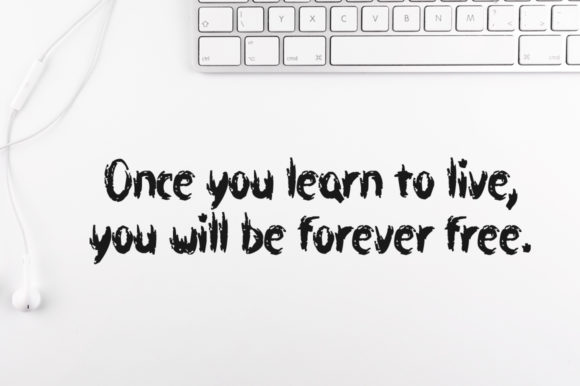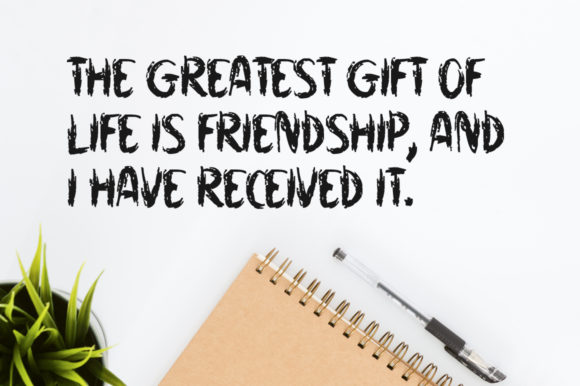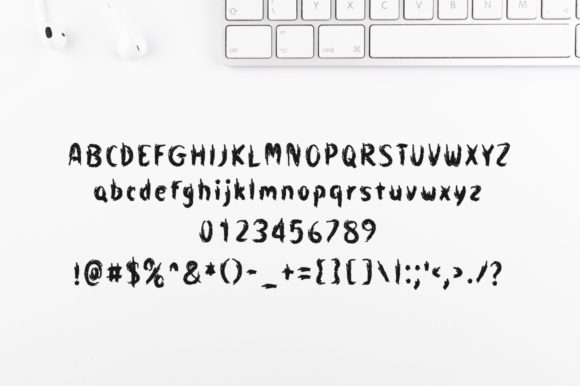
Introducing Forever Free Font: Adding a Rough Twist to Your Design Projects
Are you tired of using the same old fonts in your design projects? Look no further! Forever Free Font is a bold display font that is sure to add a unique charm to any design. With its rough and edgy texture, Forever Free Font is perfect for designers and crafters who want to add a touch of personality to their work.
What is Forever Free Font?
Forever Free Font is a bold display font that is designed to make a statement. Its unique charm lies in its rough and imperfect texture, which gives it a handmade feel. The font is perfect for use in a variety of design projects, including posters, flyers, brochures, and more.
Key Features of Forever Free Font
- Bold and eye-catching: Forever Free Font is a bold display font that is sure to grab attention.
- Unique texture: The font has a rough and imperfect texture that gives it a handmade feel.
- Versatile: Forever Free Font can be used in a variety of design projects, from posters and flyers to brochures and more.
- Easy to read: Despite its bold and rough texture, Forever Free Font is easy to read, even in large blocks of text.
Who is Forever Free Font for?
Forever Free Font is perfect for designers and crafters who want to add a touch of personality to their work. It’s ideal for:
- Graphic designers: Forever Free Font is perfect for use in a variety of graphic design projects, from posters and flyers to brochures and more.
- Crafters: The font is also perfect for crafters who want to add a personal touch to their handmade projects, such as scrapbooking and card making.
- Small business owners: Forever Free Font can be used by small business owners who want to create eye-catching marketing materials that reflect their brand’s personality.
Tips and Tricks for Using Forever Free Font
Here are a few tips and tricks for using Forever Free Font:
- Use it sparingly: Forever Free Font is a bold font, so use it sparingly to avoid overwhelming your design.
- Pair it with other fonts: Pair Forever Free Font with other fonts to create a unique and eye-catching design.
- Experiment with colors: Experiment with different colors to find the perfect combination for your design.
| Font Name | Forever Free Font |
| Author | FontCove |
Forever Free Font is a bold display font with a unique charm that is sure to add a rough twist to any design project. With its rough and edgy texture, Forever Free Font is perfect for designers and crafters who want to add a touch of personality to their work. Download Forever Free Font today and start creating eye-catching designs that reflect your brand’s personality!